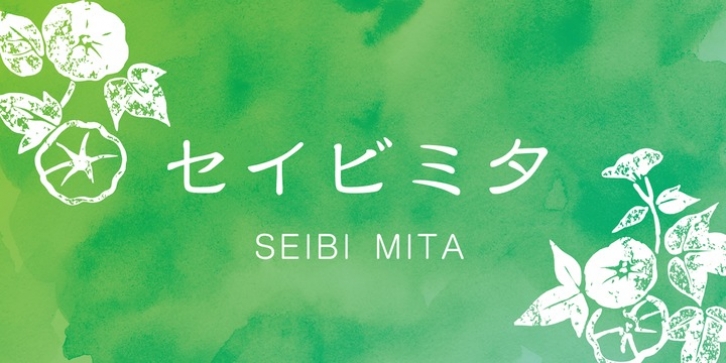
This typeface departs from the antiquated and orthodox image of the clerical script and offers a flat, simple design. With little trace of brushstrokes, it is a modern take on the clerical script that is often used for TV captions.